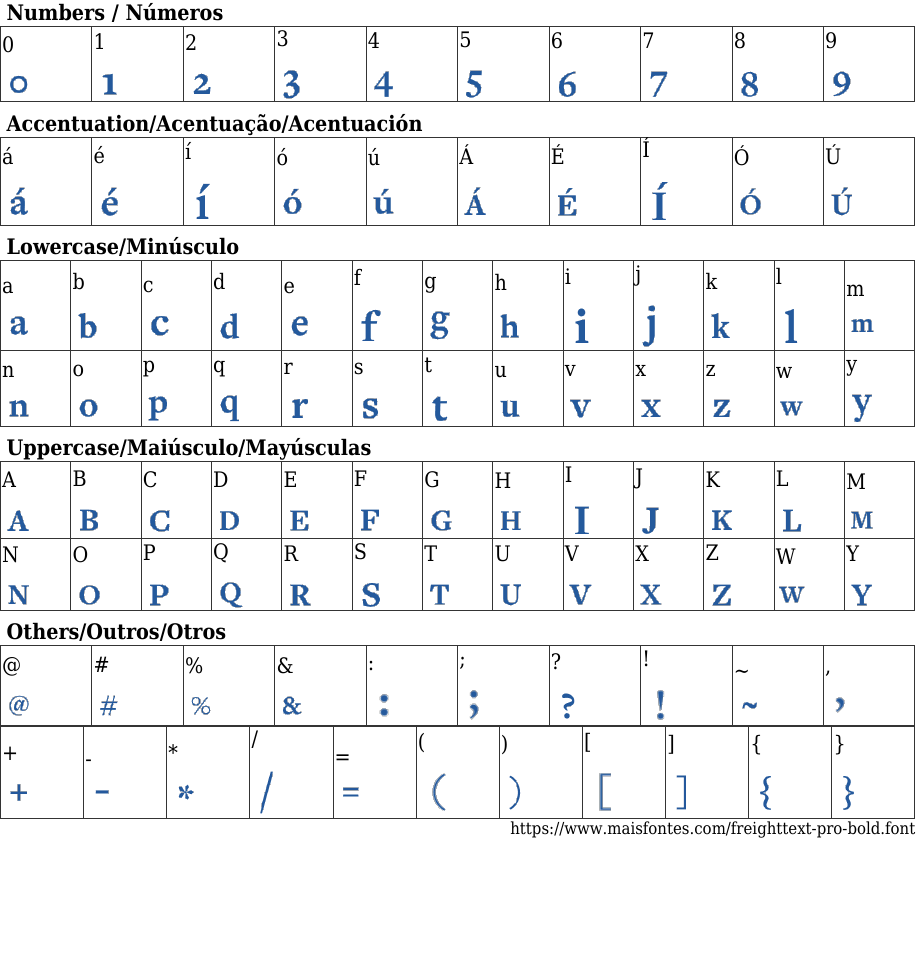
Freight Font Name . Learn more about its features, similar fonts, and font pairing. Moved to the the freight collection in 2022. It contains 12 styles and. Download freight sans medium for free. View sample text, character map, user rating and review for freight sans medium Freight text pro is a serif display font designed by joshua darden and published by freight collection. Freight text is a versatile serif font family with five weights and matching italics and small caps. Learn how to use it with other fonts,. Designed by joshua darden and released with garagefonts. Download freight for free, view sample text, rating and more on fontsgeek.com Explore freight text designed by joshua darden at adobe fonts. The freight collection comprises a compelling array of intertwined typeface families ready to add unique style to any project. Buy & download freight text pro light, a font by the freight collection. A serif typeface with 24 styles, available from adobe fonts for sync and web.
Freight text pro is a serif display font designed by joshua darden and published by freight collection. Download freight for free, view sample text, rating and more on fontsgeek.com Learn more about its features, similar fonts, and font pairing. Buy & download freight text pro light, a font by the freight collection. Designed by joshua darden and released with garagefonts. It contains 12 styles and. Learn how to use it with other fonts,. Download freight sans medium for free. Moved to the the freight collection in 2022. The freight collection comprises a compelling array of intertwined typeface families ready to add unique style to any project.
Freight Font Name Explore freight text designed by joshua darden at adobe fonts. The freight collection comprises a compelling array of intertwined typeface families ready to add unique style to any project. View sample text, character map, user rating and review for freight sans medium Download freight sans medium for free. Buy & download freight text pro light, a font by the freight collection. Freight text is a versatile serif font family with five weights and matching italics and small caps. Moved to the the freight collection in 2022. Explore freight text designed by joshua darden at adobe fonts. Learn more about its features, similar fonts, and font pairing. Freight text pro is a serif display font designed by joshua darden and published by freight collection. Download freight for free, view sample text, rating and more on fontsgeek.com Learn how to use it with other fonts,. Designed by joshua darden and released with garagefonts. It contains 12 styles and. A serif typeface with 24 styles, available from adobe fonts for sync and web.
Freight Collection Freight Font Name The freight collection comprises a compelling array of intertwined typeface families ready to add unique style to any project. Buy & download freight text pro light, a font by the freight collection. Moved to the the freight collection in 2022. View sample text, character map, user rating and review for freight sans medium Learn more about its features, similar fonts,. Freight Font Name.
FreightText font free download for WEB Freight Font Name Designed by joshua darden and released with garagefonts. The freight collection comprises a compelling array of intertwined typeface families ready to add unique style to any project. It contains 12 styles and. A serif typeface with 24 styles, available from adobe fonts for sync and web. Freight text is a versatile serif font family with five weights and matching italics. Freight Font Name.
Freight Text Pro Bold Free Font Download MaisFontes Freight Font Name Download freight for free, view sample text, rating and more on fontsgeek.com Freight text is a versatile serif font family with five weights and matching italics and small caps. A serif typeface with 24 styles, available from adobe fonts for sync and web. Explore freight text designed by joshua darden at adobe fonts. Download freight sans medium for free. Freight. Freight Font Name.
Freight Regular truetype font Freight Font Name Designed by joshua darden and released with garagefonts. It contains 12 styles and. Freight text pro is a serif display font designed by joshua darden and published by freight collection. The freight collection comprises a compelling array of intertwined typeface families ready to add unique style to any project. Explore freight text designed by joshua darden at adobe fonts. Moved. Freight Font Name.
Freight Display Pro™ font & Desktop font Fonts, Graphic designer Freight Font Name Explore freight text designed by joshua darden at adobe fonts. Learn how to use it with other fonts,. Freight text is a versatile serif font family with five weights and matching italics and small caps. Download freight sans medium for free. A serif typeface with 24 styles, available from adobe fonts for sync and web. Moved to the the freight. Freight Font Name.
Freight Font Download For Free, View Sample Text, Rating And More On Freight Font Name Explore freight text designed by joshua darden at adobe fonts. Buy & download freight text pro light, a font by the freight collection. Learn more about its features, similar fonts, and font pairing. It contains 12 styles and. Designed by joshua darden and released with garagefonts. A serif typeface with 24 styles, available from adobe fonts for sync and web.. Freight Font Name.